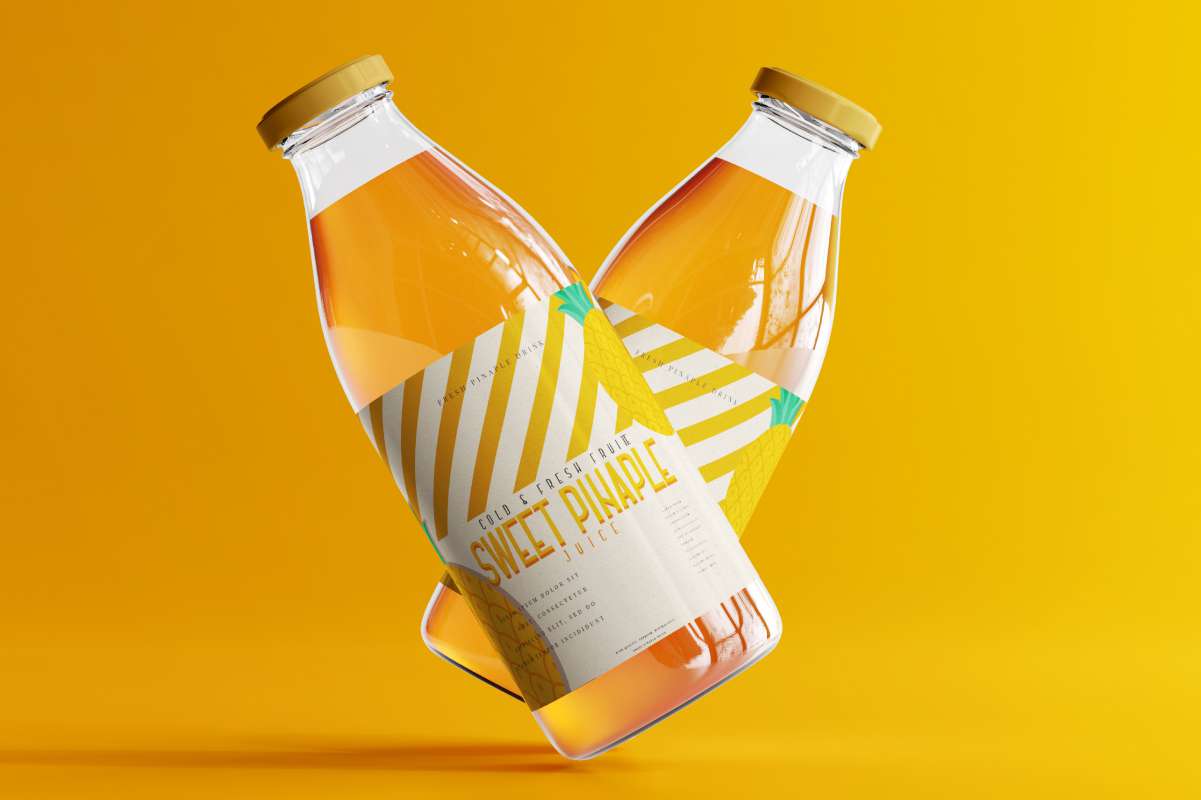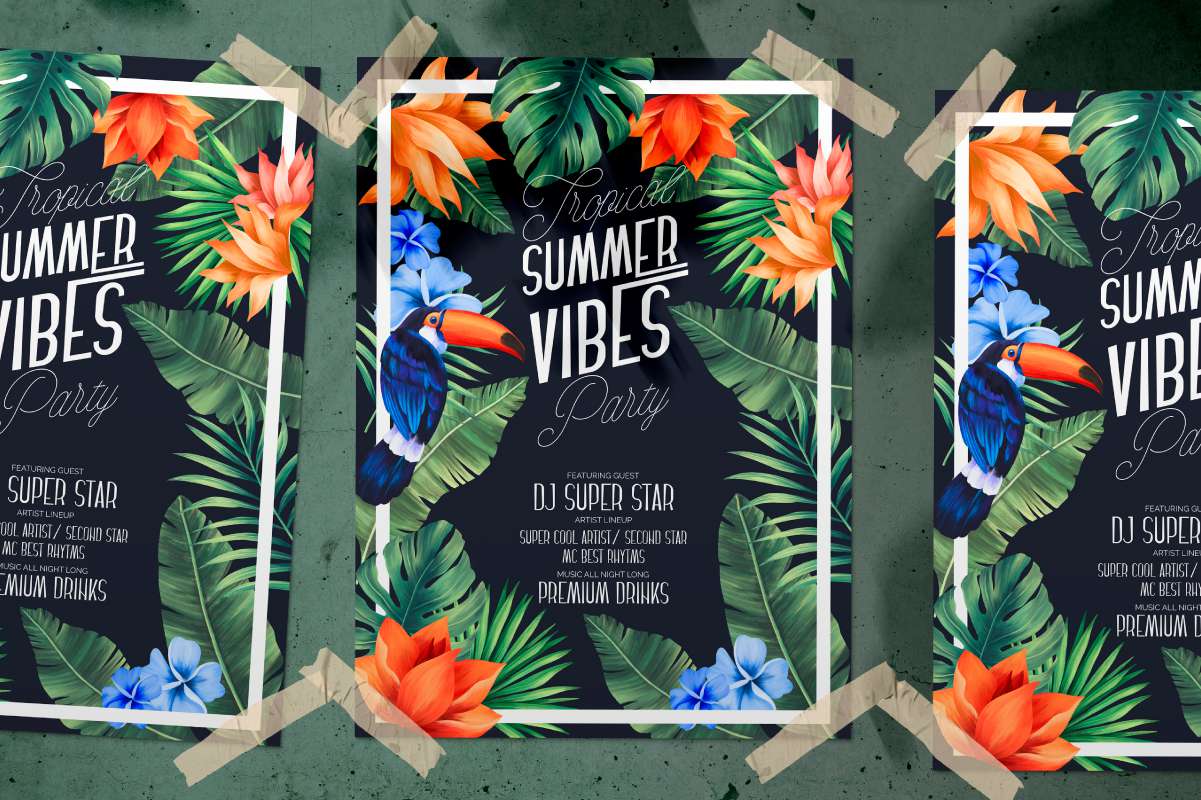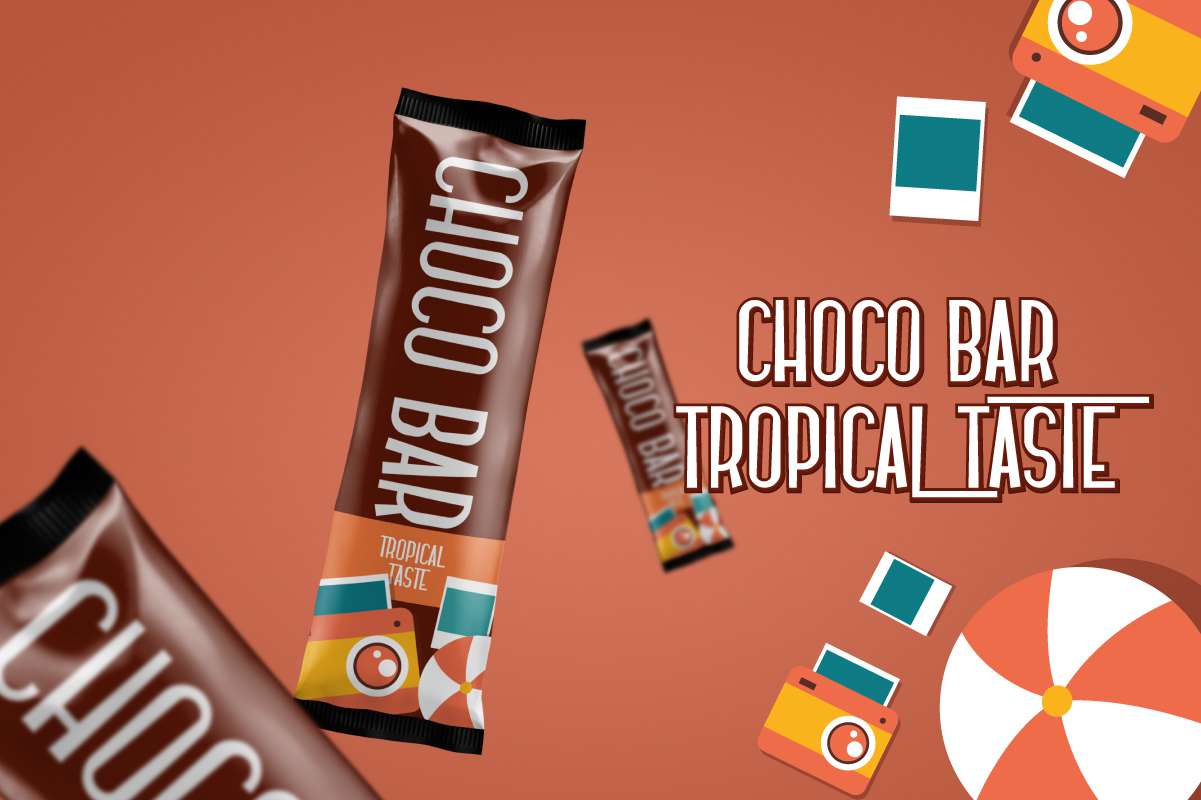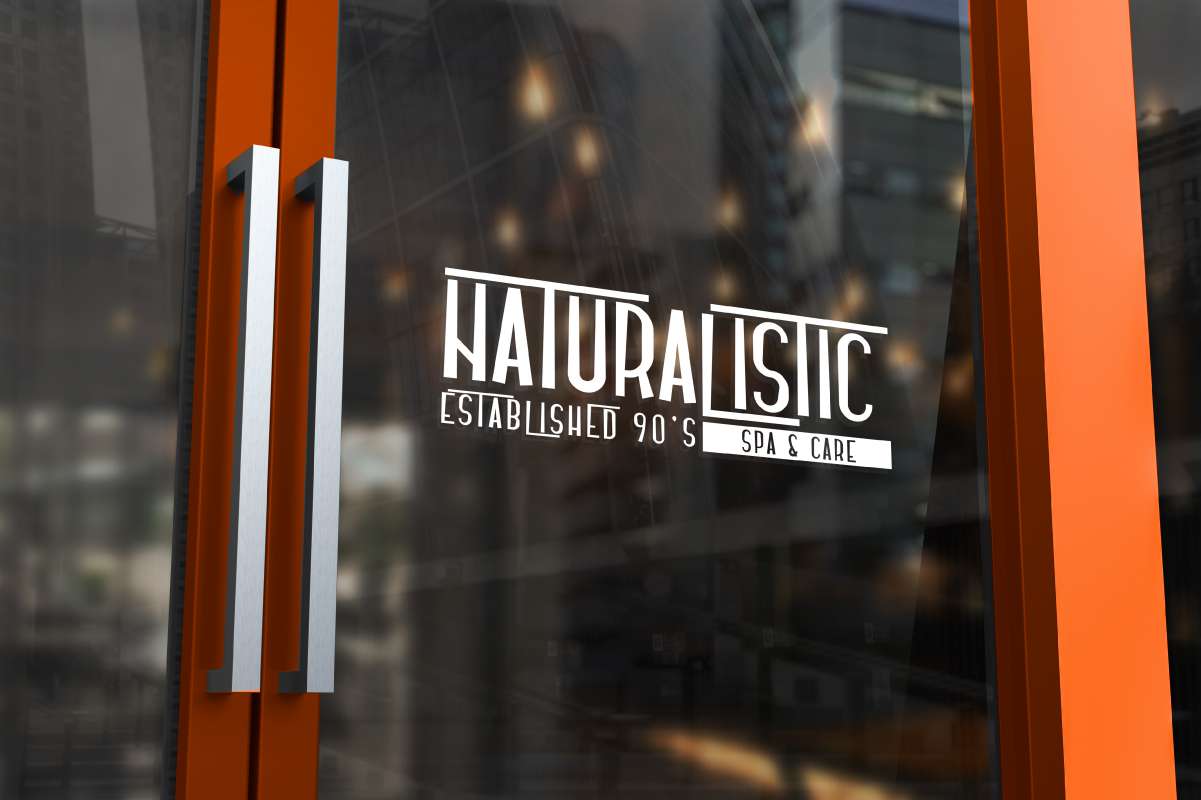
Haiterbach Font
Haiterbach Display Font
This is a modern sans serif display font with exclusive special alternate characters. Inspired by summer vibes, its fresh style comes with exclusive letterforms , modern shape and various alternates. A balance of hard lines and smooth curves. This font it works great in any blogs, logo branding, business card, poster, product designs, sign. The two different weights give a real modern feel to any project.